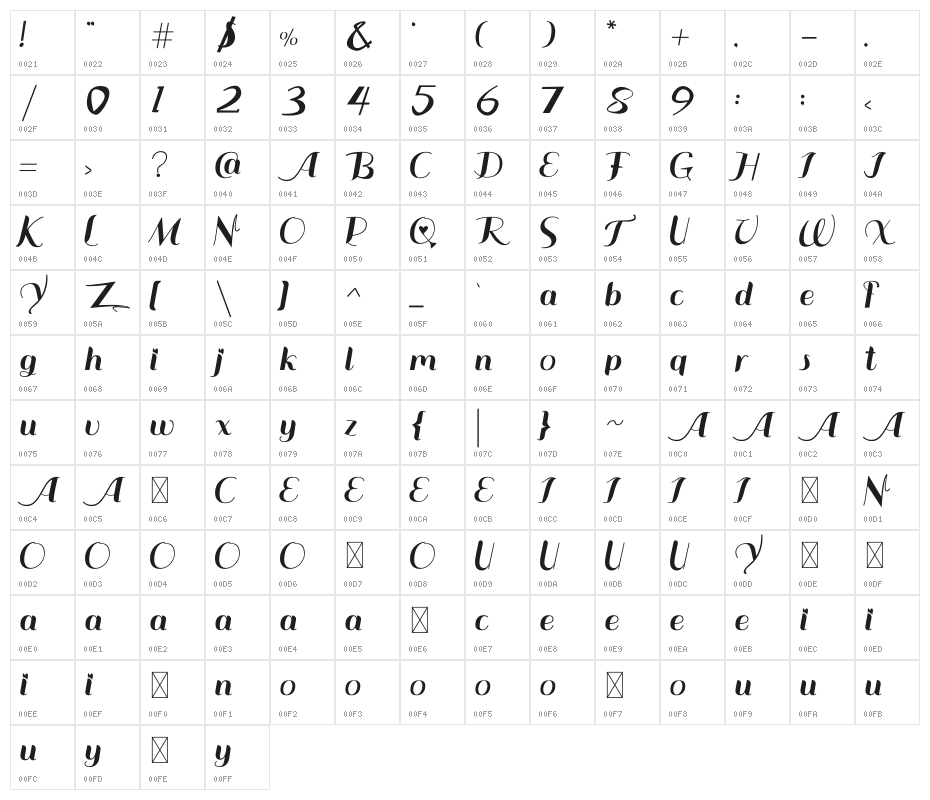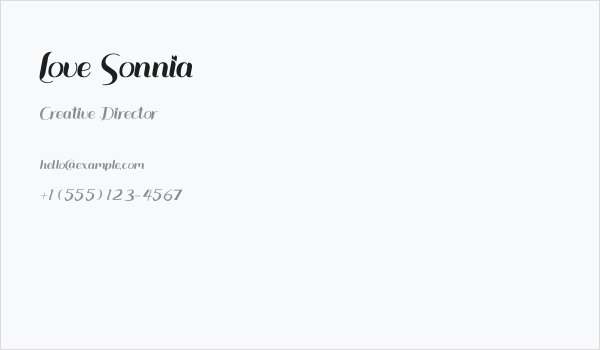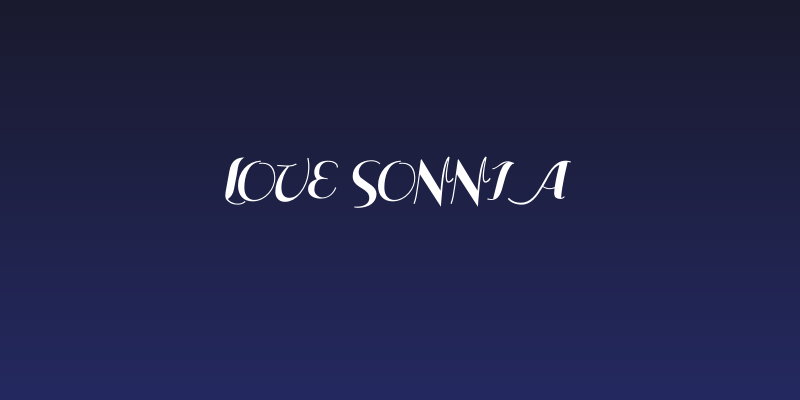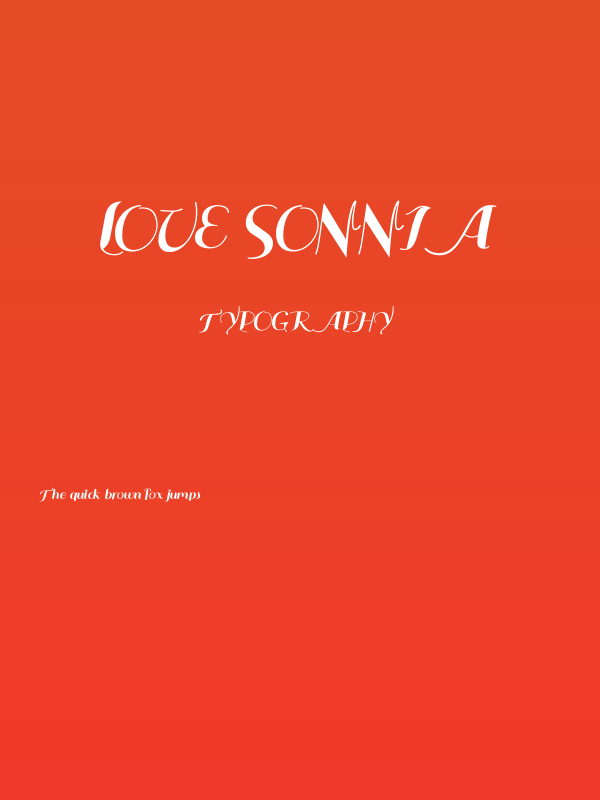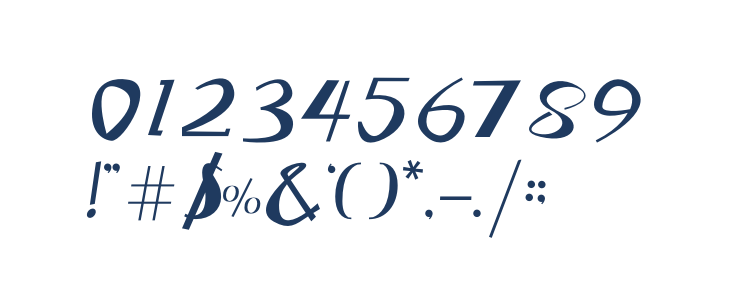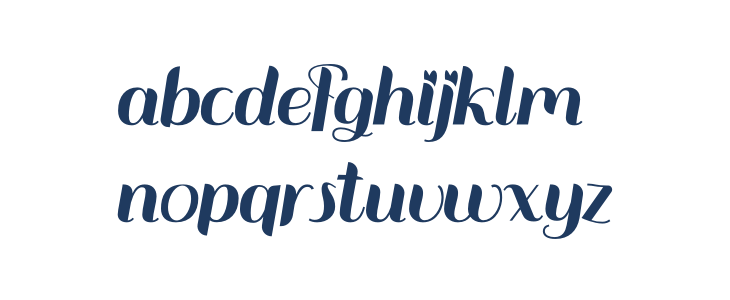
Love Sonnia Font
Love Sonnia Description
This font exudes elegance and sophistication with its flowing, cursive style. The uppercase letters are characterized by their sweeping curves and delicate serifs, giving them a graceful appearance. The lowercase letters maintain a consistent flow, with some characters featuring unique flourishes that add a touch of whimsy. The numerals are distinct and maintain the same elegant style, ensuring readability while complementing the overall aesthetic. Special characters are thoughtfully designed to match the font's refined look, making it versatile for various uses.